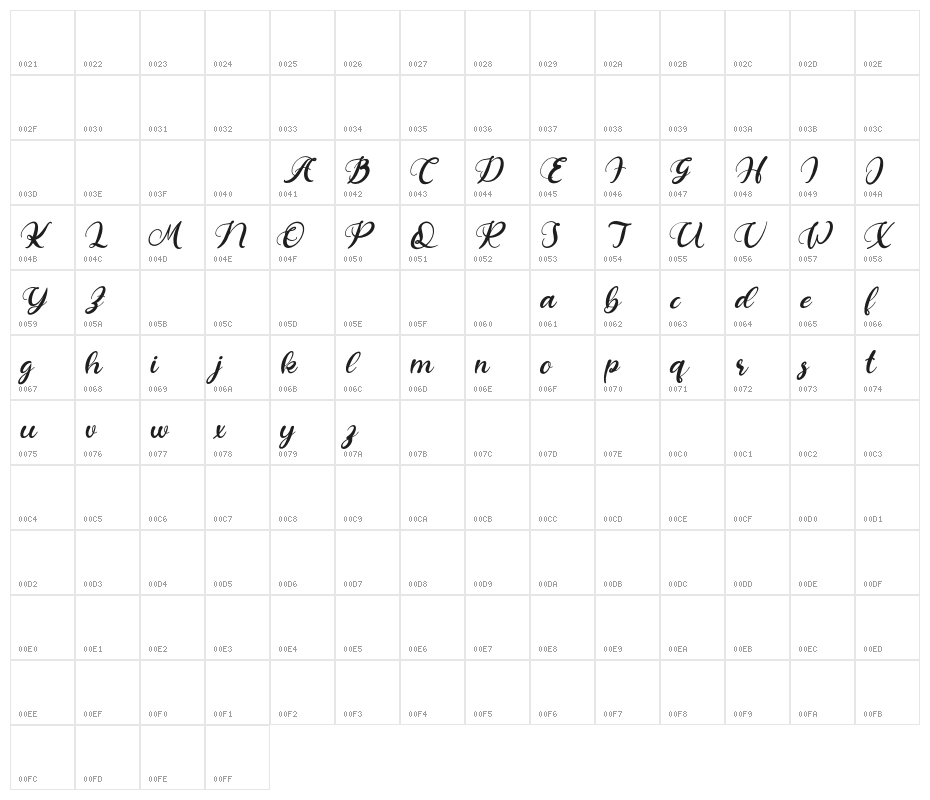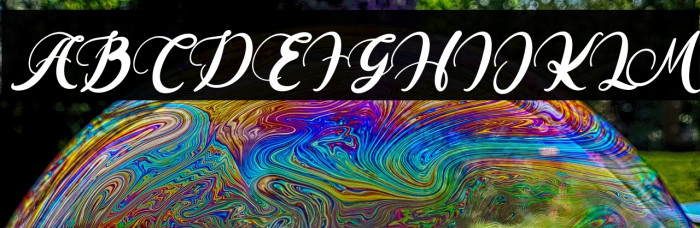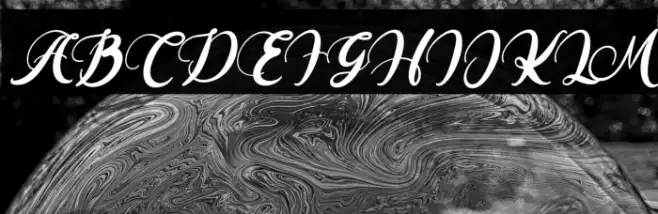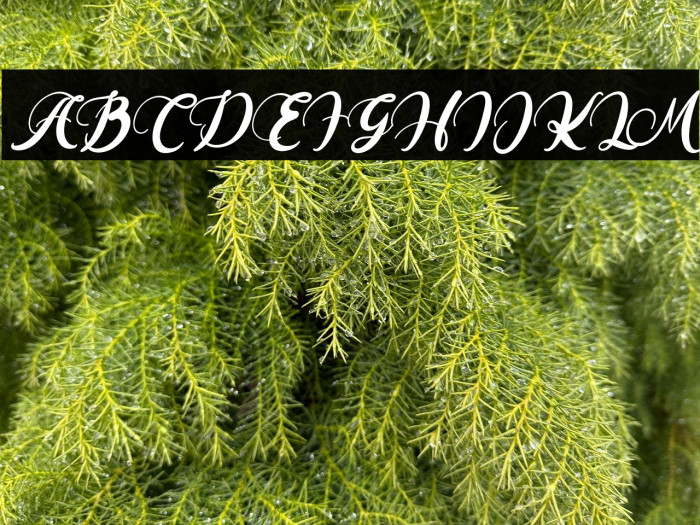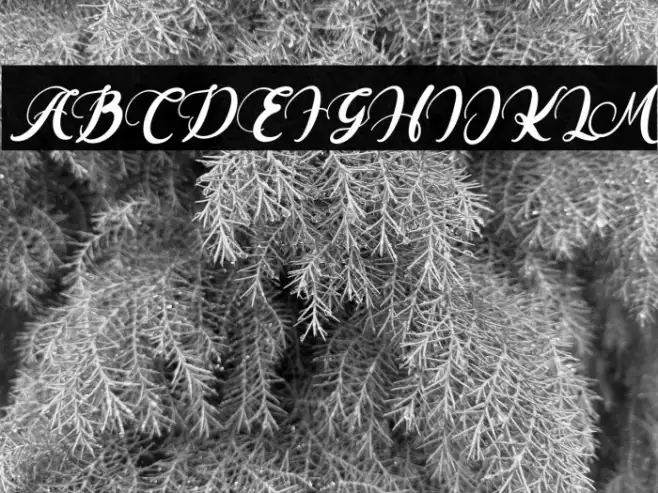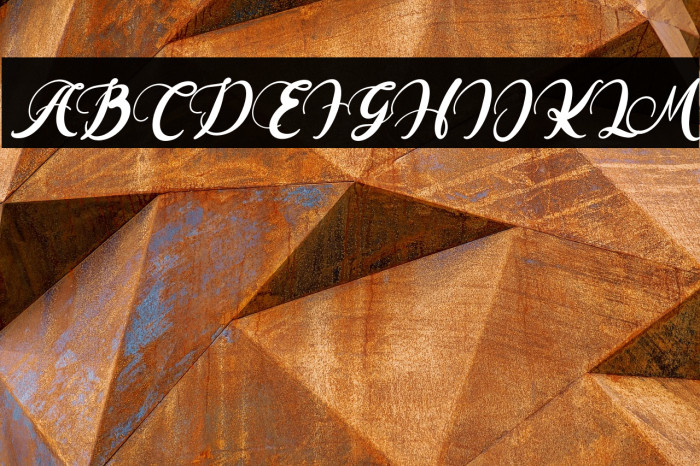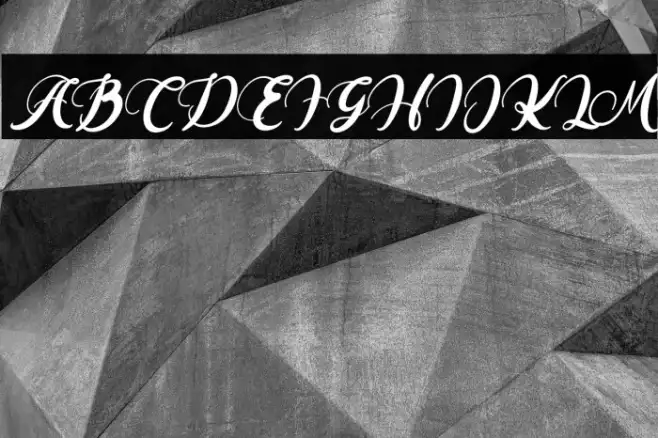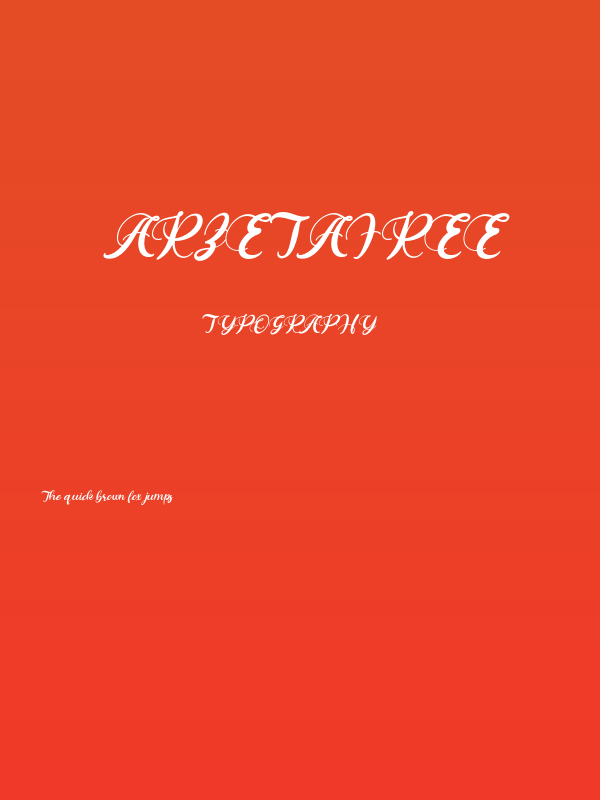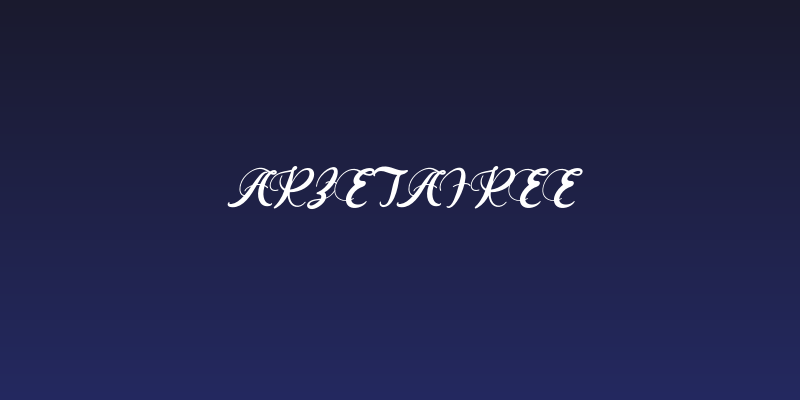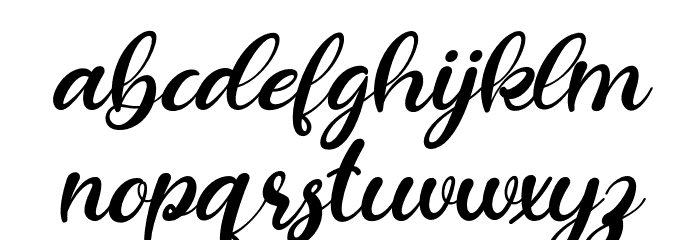
ArzetaFREE Font
ArzetaFREE Description
This font features a flowing, cursive style that exudes elegance and sophistication. The letters are interconnected, creating a seamless and fluid appearance. The strokes are bold and confident, with a slight slant that adds to the dynamic feel of the typeface. The uppercase letters are ornate, with intricate loops and swirls, while the lowercase letters maintain a consistent rhythm and balance. This font is perfect for projects that require a touch of class and refinement, such as wedding invitations, luxury branding, or elegant signage.
| Overall Style | Elegant |
| Use Case | Headlines, Logos, Invitations |
| Proposed Projects | Ideal for wedding invitations, luxury branding, elegant signage, and decorative headings. |